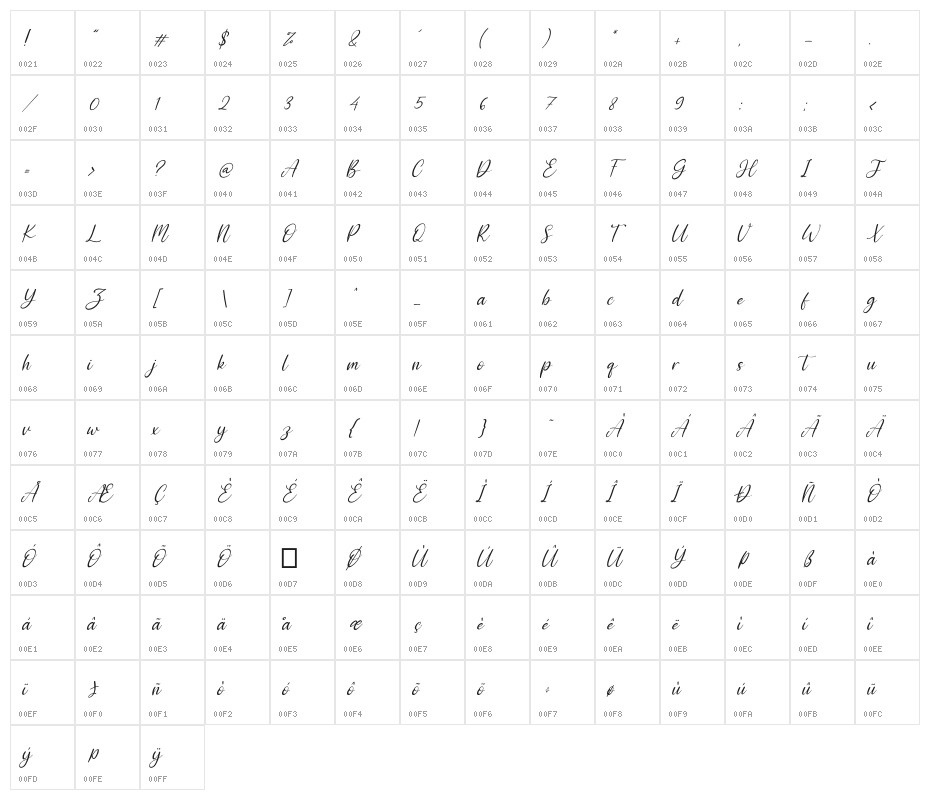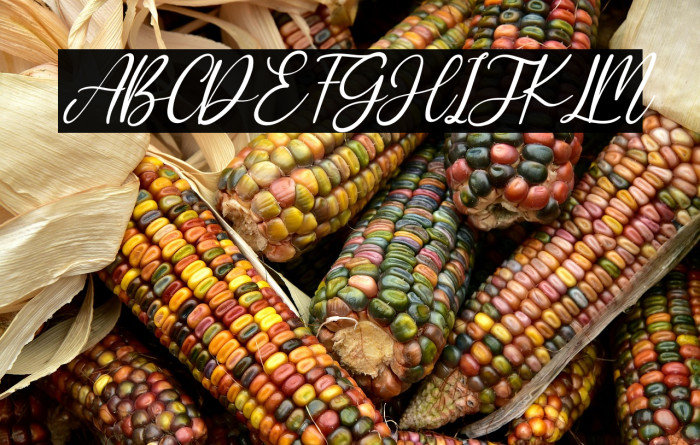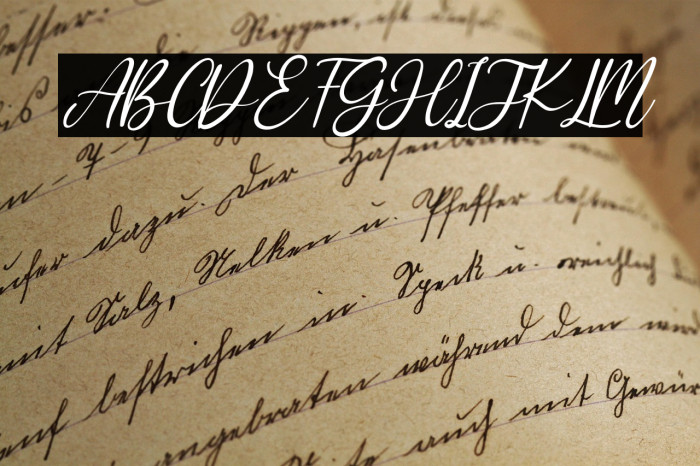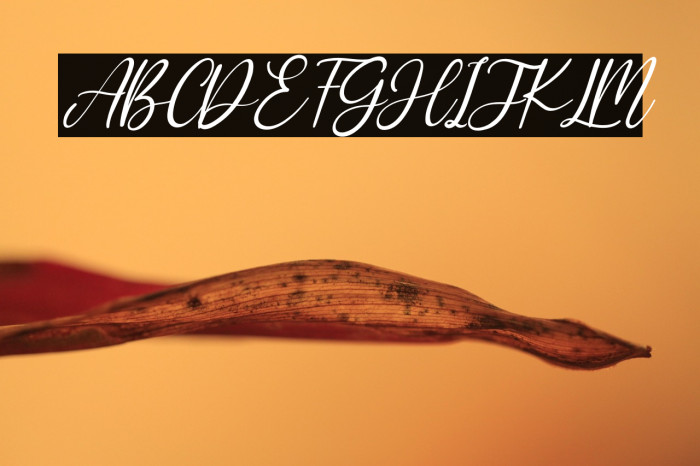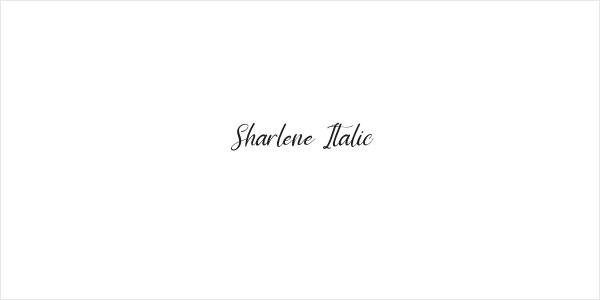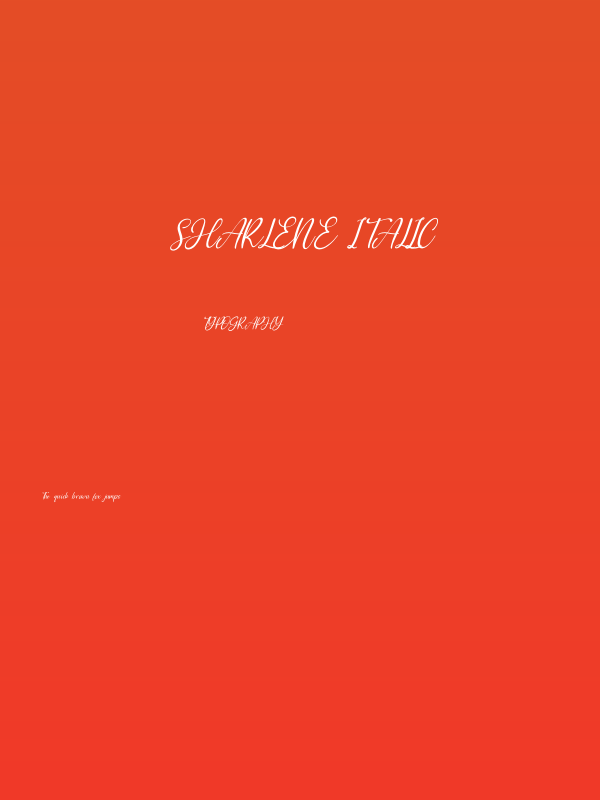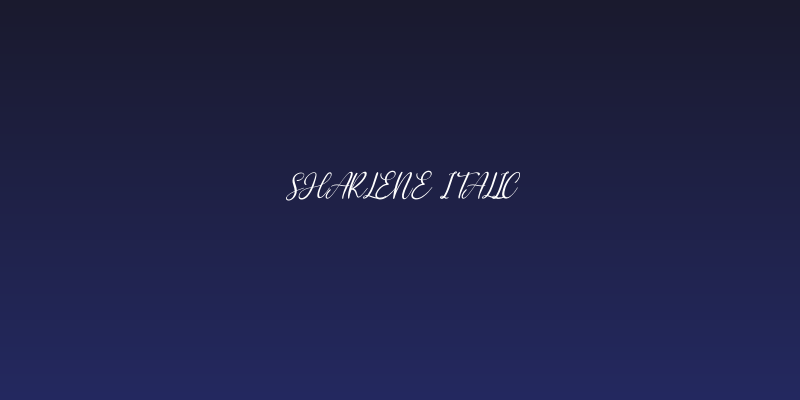
Sharlene Italic Font
Sharlene Italic Description
This elegant script font features a flowing, cursive style with smooth, connected strokes. The letters are slightly slanted, giving it an italic appearance that enhances its graceful and sophisticated look. The uppercase letters are ornate, with intricate loops and swirls, while the lowercase letters maintain a consistent, fluid motion. The numerals and special characters are designed to match the overall aesthetic, ensuring a cohesive appearance across all text. This font is perfect for adding a touch of elegance and refinement to any project.
| Proposed Projects | Ideal for wedding invitations, elegant branding, greeting cards, and upscale packaging. |